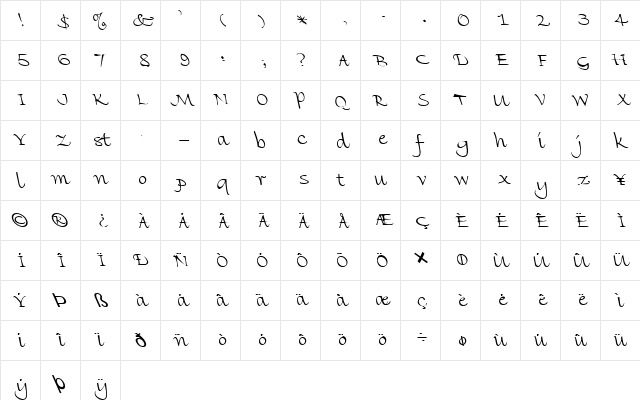
FZ HAND 8 LEFTY Light Font Preview
Design Context for FZ HAND 8 LEFTY Typeface
FZ HAND 8 LEFTY brings a calligraphic fluidity to the page — its connecting strokes and expressive curves give it an unmistakably human quality. The delicate stroke weight brings airiness and refinement to layouts.
Font Pairing: Combine FZ HAND 8 LEFTY with a simple geometric sans for maximum contrast — the tension between flowing curves and clean structure is a classic typographic pairing.
Pro Tip: Pair FZ HAND 8 LEFTY with a clean sans-serif for supporting text. The contrast between fluid script and geometric structure creates an elegant typographic hierarchy.